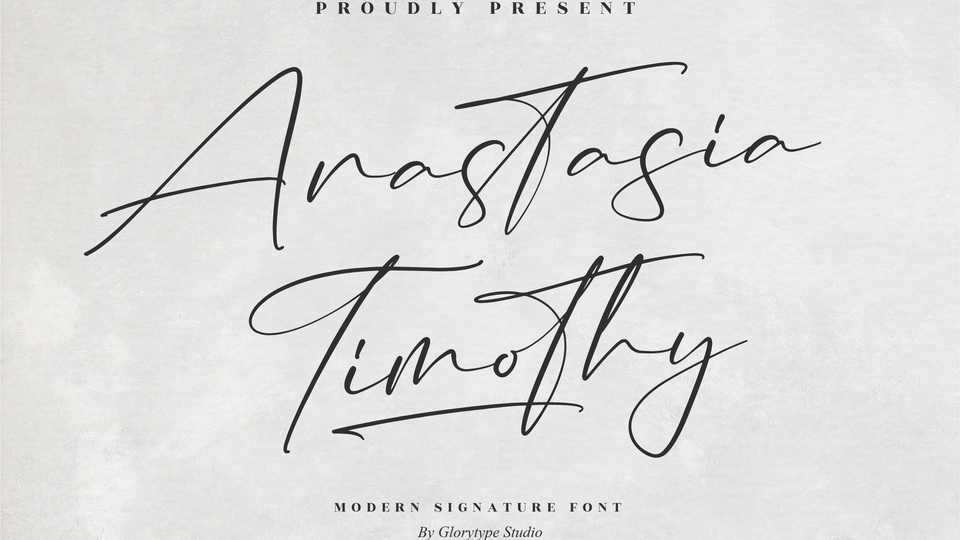
Download Anastasia Timothy font, a casual signature style script font. With its natural look Anastasia Timothy font is perfect for personal branding, quotes, posters, cards, photography watermark and all your other lovely projects that need a beautiful script taste.
Designer: Glorytype Studio